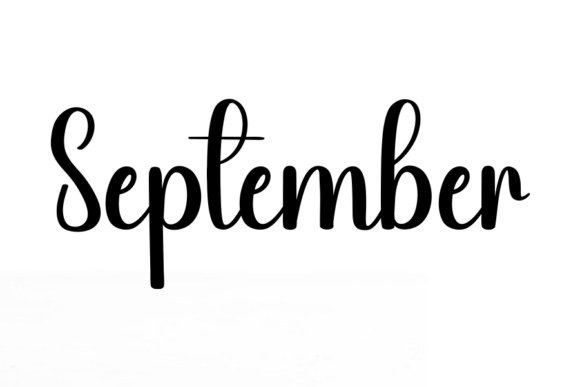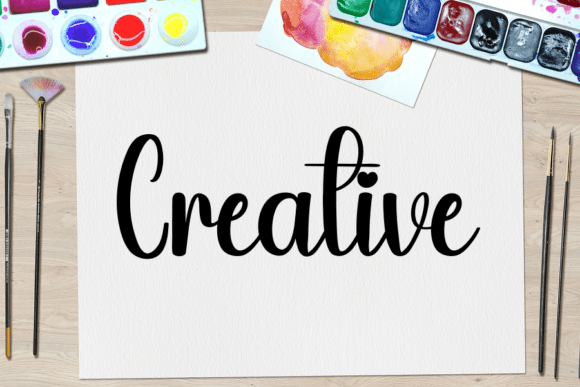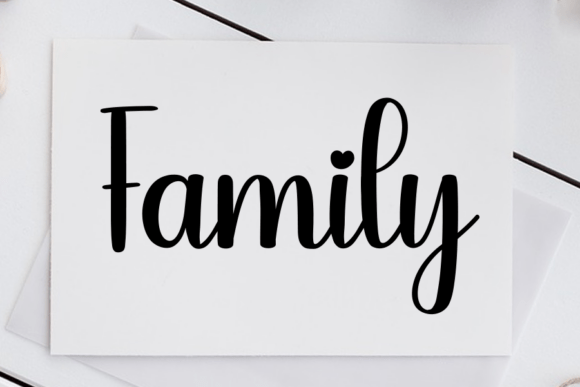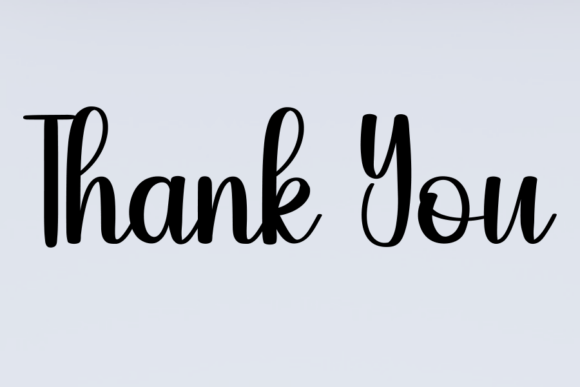
The Sweet Spot: Discovering Berries Font
I’ll never forget the time I was working on a greeting card project for a friend’s birthday. I had the design all laid out, but something was missing – the perfect font. I scrolled through page after page of Google Fonts, but nothing seemed quite right. That’s when I stumbled upon Berries Font. It was like the clouds parted, and the sun shone down on my design struggles. This simple, handwritten font was exactly what I needed to add a touch of warmth and personality to my project.
An Honest Review of Berries Font
So, what makes Berries Font so special? Let’s dive into the good stuff and a few quirks I’ve discovered.
• ✅ Versatility: Berries Font is incredibly versatile. I’ve used it for everything from greeting cards to headlines, and it always seems to fit right in.
• ✅ Simple and Natural Feel: This font has a way of making your designs feel more approachable and down-to-earth. It’s perfect for projects where you want to convey a sense of friendliness and warmth.
• ✅ Ease of Use: Berries Font is easy to read and works well in a variety of sizes, making it perfect for both print and digital projects.
• ⚠️ Limited Formality: While Berries Font is great for most projects, it may not be the best choice for more formal designs. It’s a font that leans towards the casual and playful side.
• ⚠️ Glyph Limitations: While Berries Font has a nice range of glyphs, it may not have every special character or symbol you need. Be sure to check the font’s capabilities before committing to a project.
The Story Behind Berries Font
Berries Font was created with the intention of bringing a simple, yet personal touch to design projects. The designer, inspired by the natural beauty of handwritten notes and the imperfections that make them charming, crafted Berries to be a font that feels approachable and genuine. Whether you’re working on a DIY craft project or a professional design, Berries aims to add that special something that makes your work stand out.
Q: What type of projects is Berries Font best suited for?
A: Berries Font is incredibly versatile and can be used for a wide range of projects, from greeting cards and invitations to headlines and digital content. It’s perfect for any project where you want to add a simple, natural feel.
Q: Does Berries Font support OpenType features?
A: Yes, Berries Font supports OpenType features, which means you can take advantage of stylistic alternates, glyphs, and more to customize your text.
Q: Is Berries Font easy to read?
A: Absolutely. One of the benefits of Berries Font is its readability. It’s clear and easy to read, making it suitable for both print and digital projects.